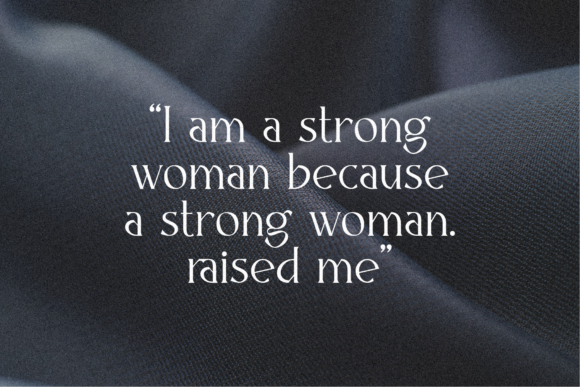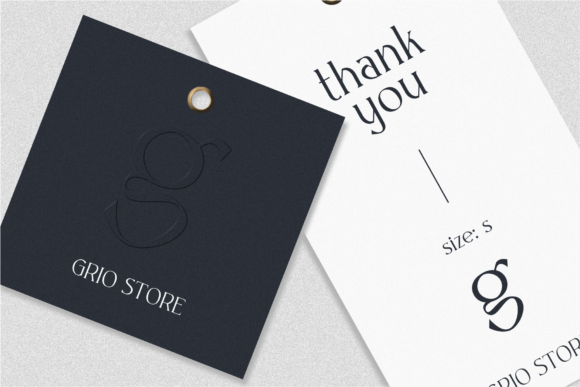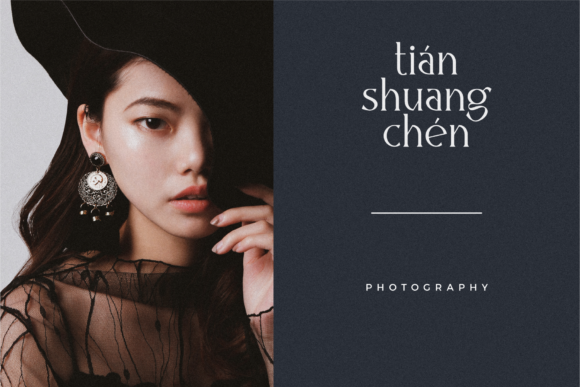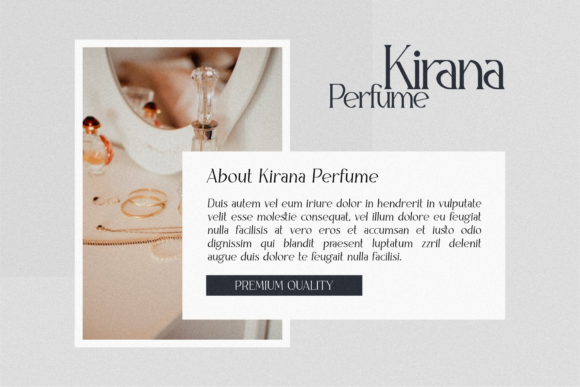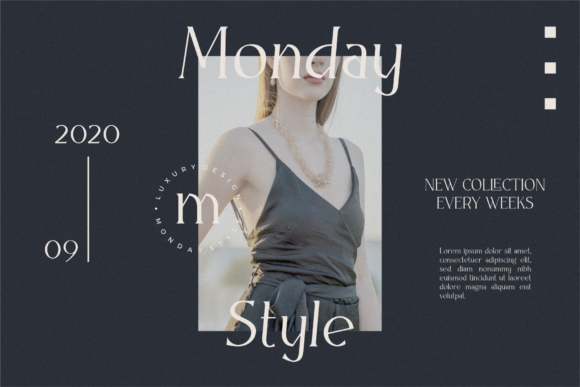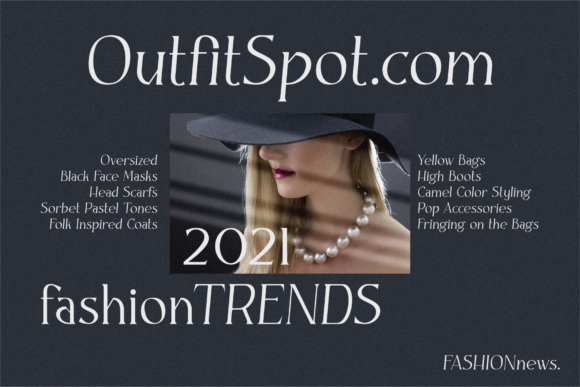
Introduction to Focger Font
Have you ever been stuck in a creative rut, staring at a blank canvas or screen, waiting for inspiration to strike? It’s a feeling many designers know all too well. But what if you had the perfect font to spark your creativity and bring your high-quality designs to life? Enter the Focger Font, a stunning, thin, and elegant serif font that’s sure to elevate any project.
Whether you’re working on a business card, a web design, or a branding campaign, the Focger Font is the perfect design resource to give your project a unique touch. Its versatility and sophistication make it an ideal choice for any creative project, from simple to complex. And the best part? It’s available for free download, so you can start experimenting with it right away.
Key Features of Focger Font
- High-quality, professional design suitable for creative projects, including logos, branding materials, and digital art.
- Unique, handcrafted design elements that add a touch of creativity and personality to any project.
- Perfect for designers, artists, and creatives looking for a high-quality font to elevate their work and leave a lasting impression.
Honest Review: Focger Font
As a designer, I’m always on the lookout for high quality design resources that can elevate my creative projects. Recently, I stumbled upon the Focger Font, and I’m excited to share my honest review with you.
- ✨ The Focger Font has a sleek and modern design that’s perfect for contemporary projects.
- ✨ The font is highly customizable, making it easy to adapt to different design styles.
Overall, I’m impressed with the Focger Font’s potential as a design resource. While it may have some limitations, its unique design and customization options make it a valuable addition to any designer’s toolkit. If you’re looking for a high-quality font for your next creative project, the Focger Font is definitely worth considering.
To maximize your use of Focger Font, experiment with different font sizes, colors, and styles. Combine it with a transparent background for a sleek, modern look.
Focger Font is ideal for:
- Brand identity